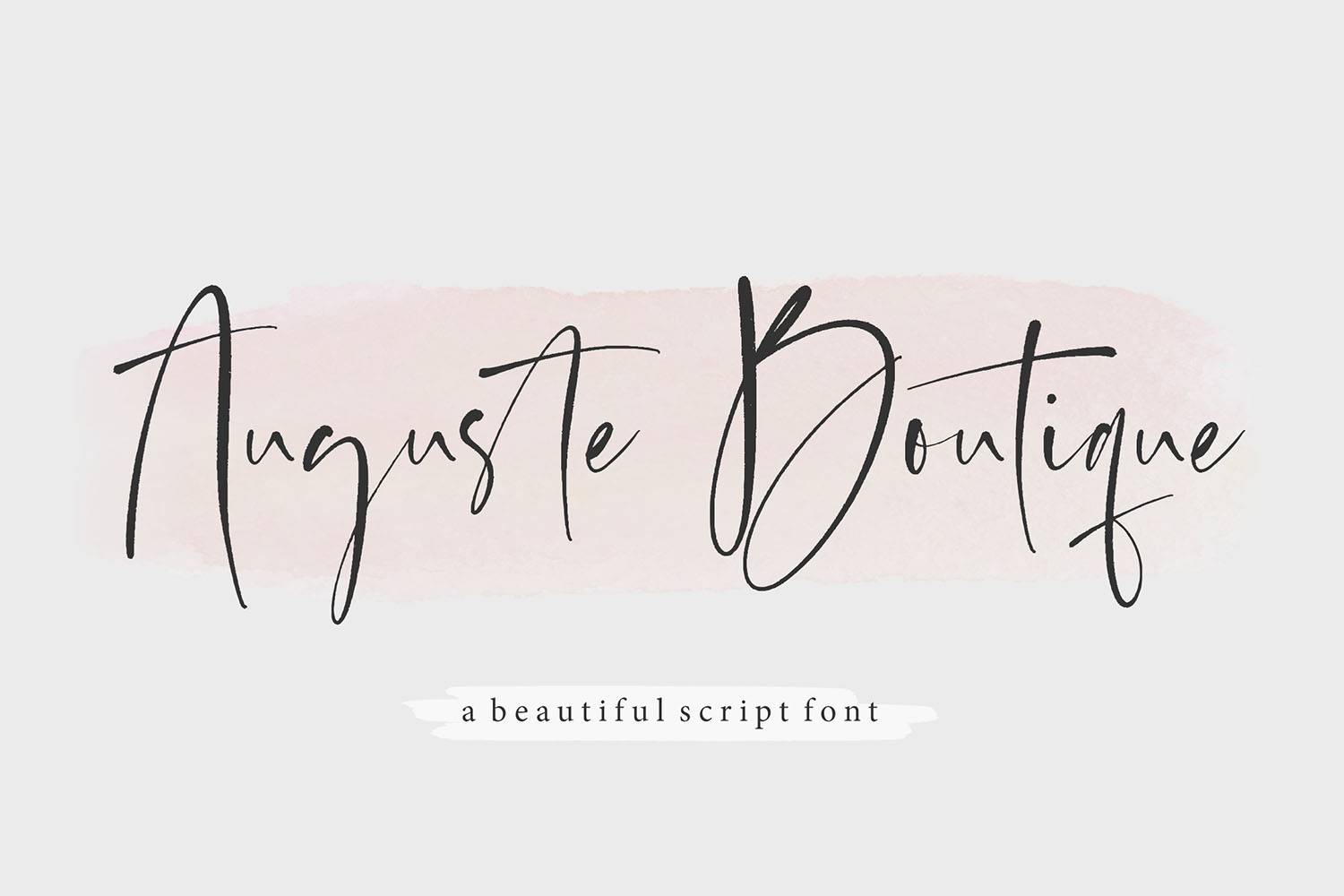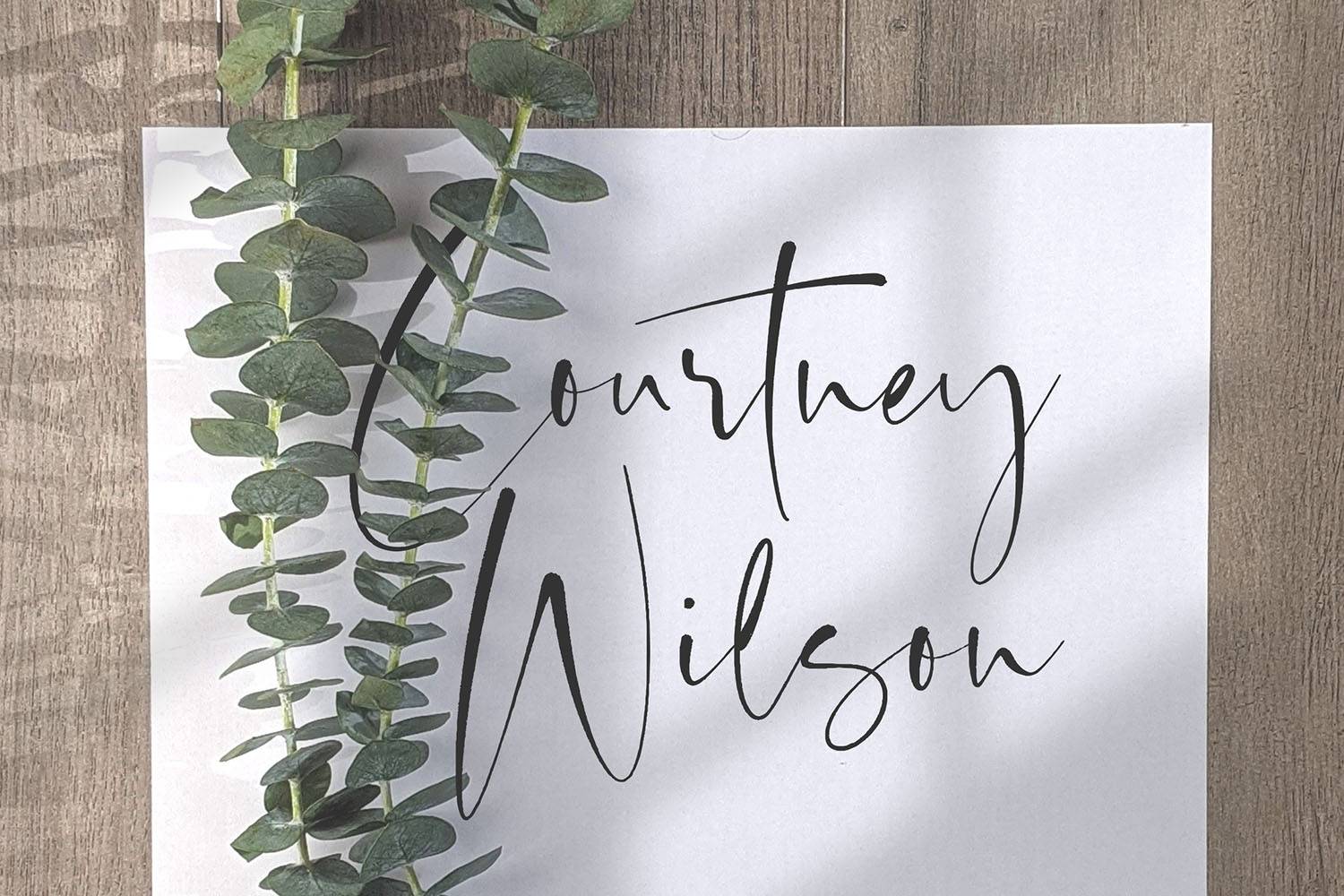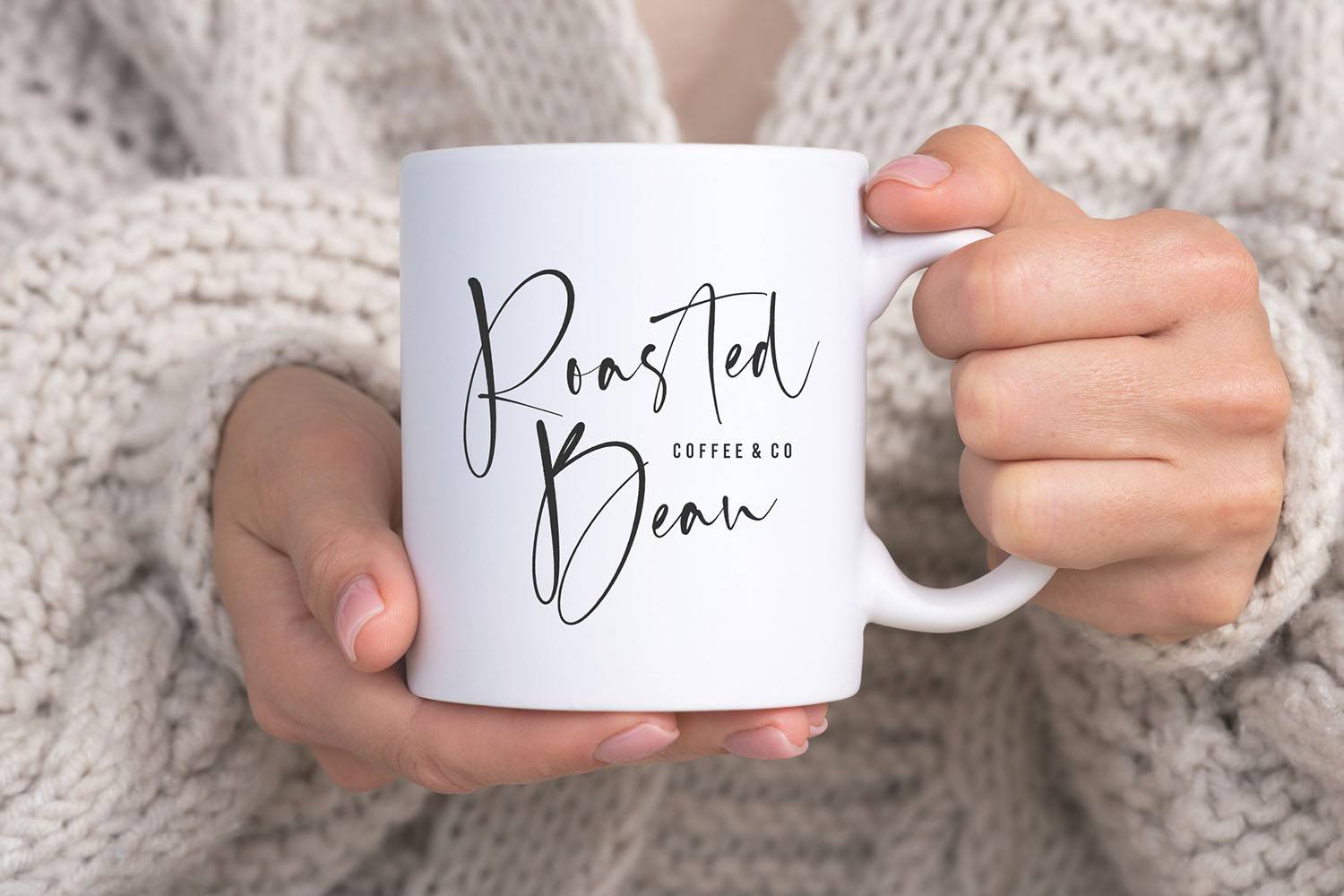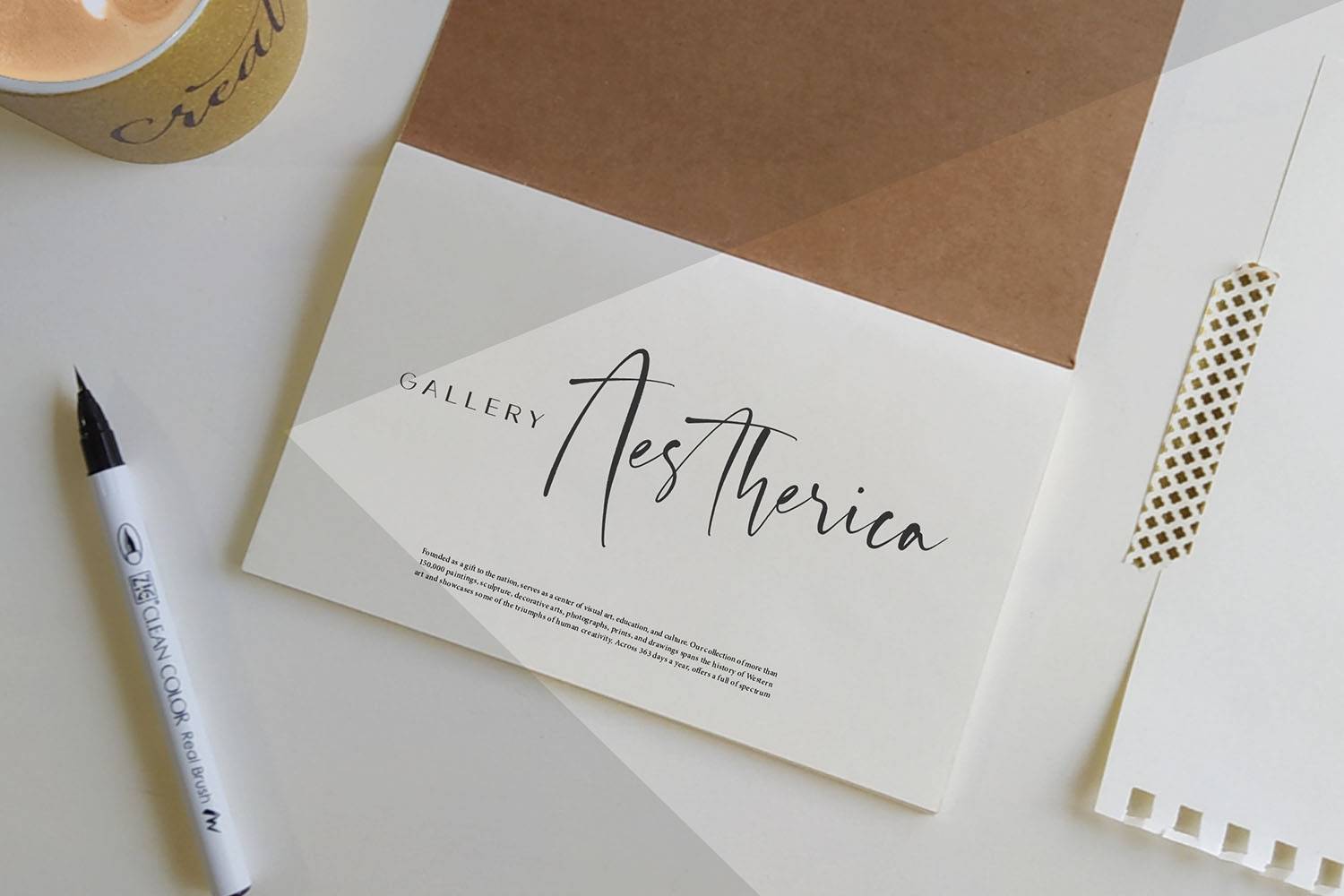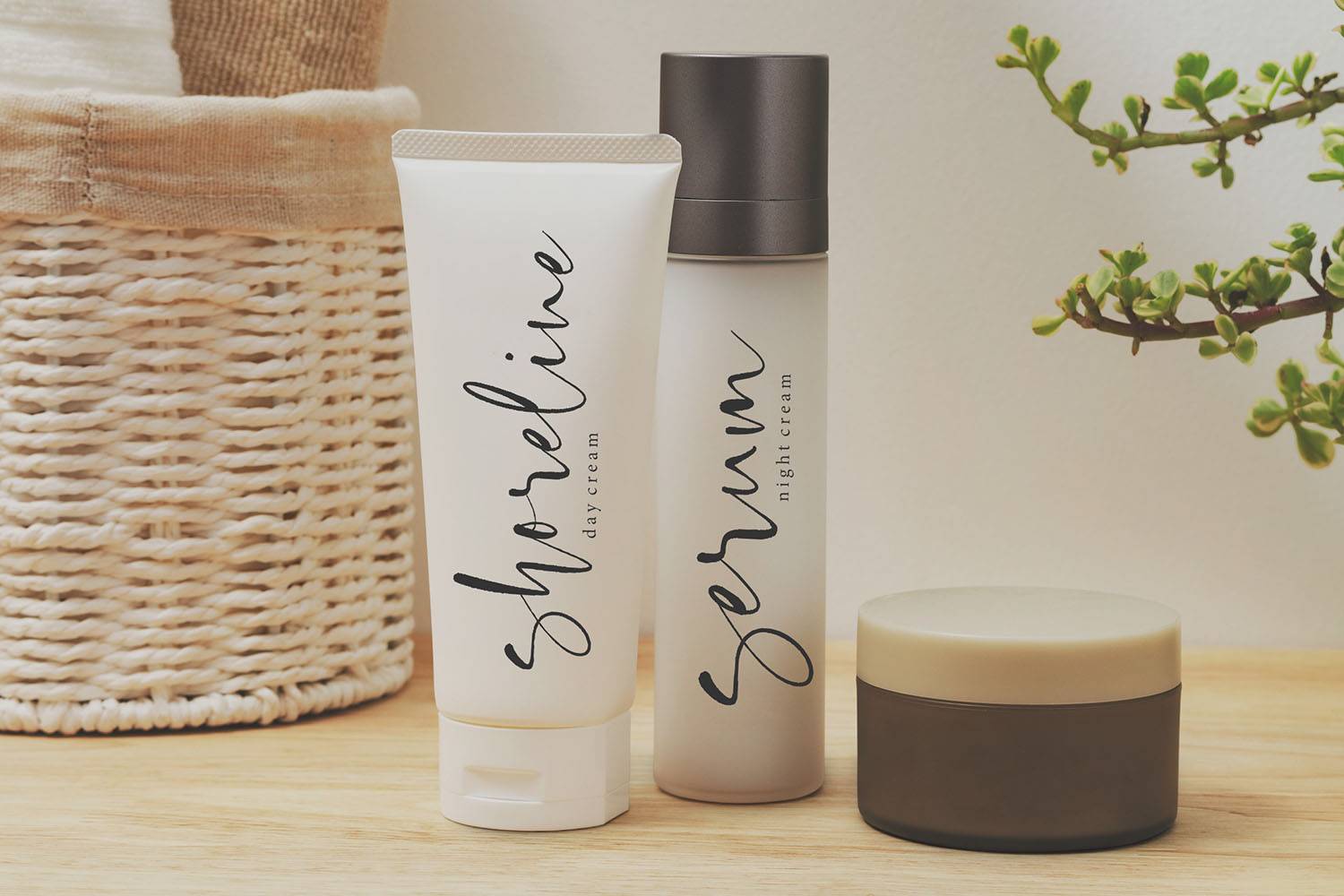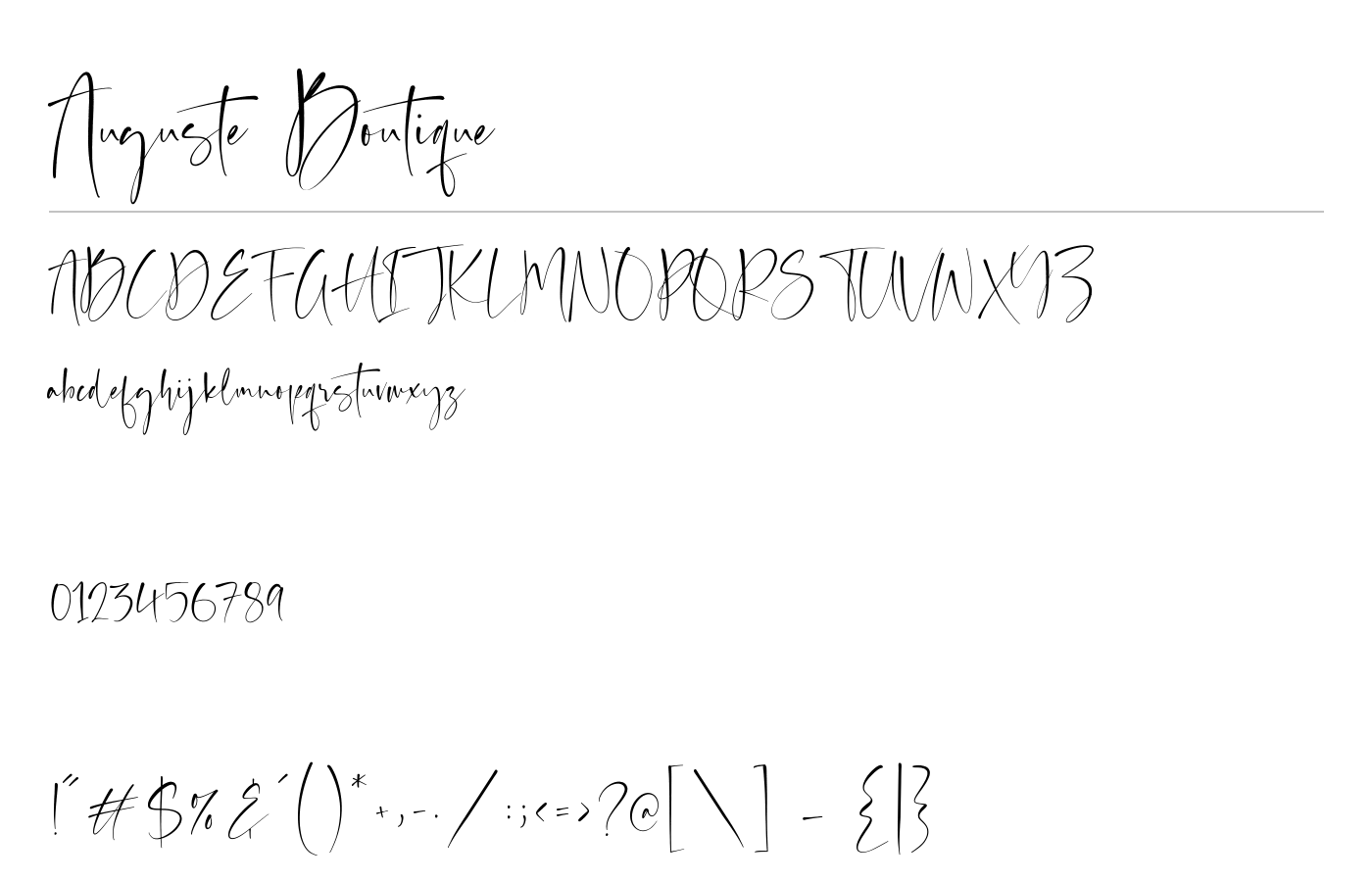
Auguste Boutique is a delicate and elegant handwritten script font with a light, airy feel created by its thin strokes and tall, narrow letterforms. Its graceful, flowing lines and sophisticated style make it ideal for luxury branding, wedding invitations, and fashion-related designs where a personal, refined touch is desired. This font works best in headlines, logos, and decorative text where its unique, stylish character can truly stand out.
Auguste Boutique Font
About Auguste Boutique Font